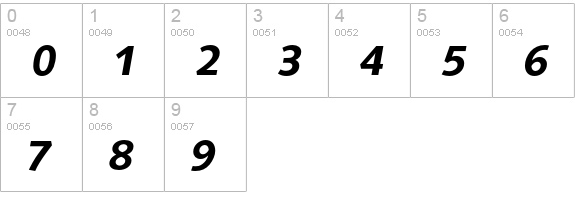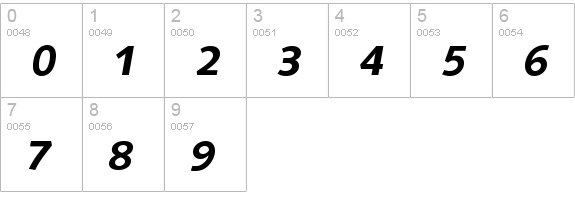
Saxony-DemiBoldIta Font Details
Saxony-DemiBoldIta font is a visually stunning typeface that combines the elegance of a bold style with the unique flair of italic letterforms. Designed with meticulous attention to detail, this font exudes a sense of sophistication and modernity, making it perfect for any design project that requires a touch of distinction. The Saxony-DemiBoldIta font boasts a balanced and harmonious letterform structure, with thick strokes and subtle curves that add a touch of elegance to each character. Its bold weight gives it a strong presence, while the italic slant adds a dynamic and stylish touch. One of the most remarkable features of Saxony-DemiBoldIta font is its versatility. Whether used for headlines, logos, posters, or any other design application, this font will effortlessly capture attention and leave a lasting impression. Its legibility is exceptional, ensuring that your message is effectively communicated to your audience. And the best part? Saxony-DemiBoldIta font is freely available to download at FontsMarket.com. You can easily access this font and bring your designs to life without any cost. It's a fantastic opportunity to enhance your creative projects with a high-quality typeface that embodies both style and professionalism. Don't miss out on the opportunity to elevate your designs with Saxony-DemiBoldIta font. Download it for free at FontsMarket.com and unlock a world of possibilities for your next design venture.